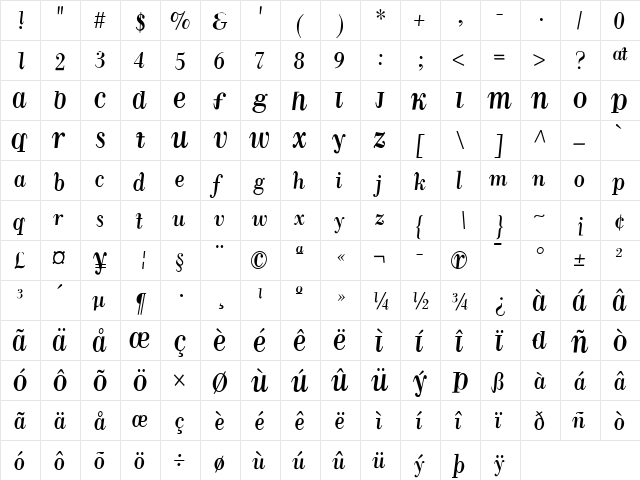
Soapbox Medium
| Foundry | Soapbox \ Lunchbox Design, Designed by Adam Roe |
Design Context for Soapbox Typeface
Soapbox is a composed and adaptable typeface that performs quietly and consistently across a wide range of design contexts.